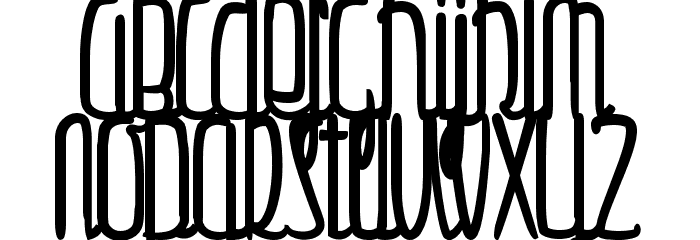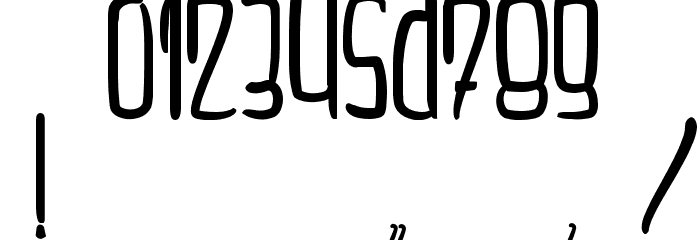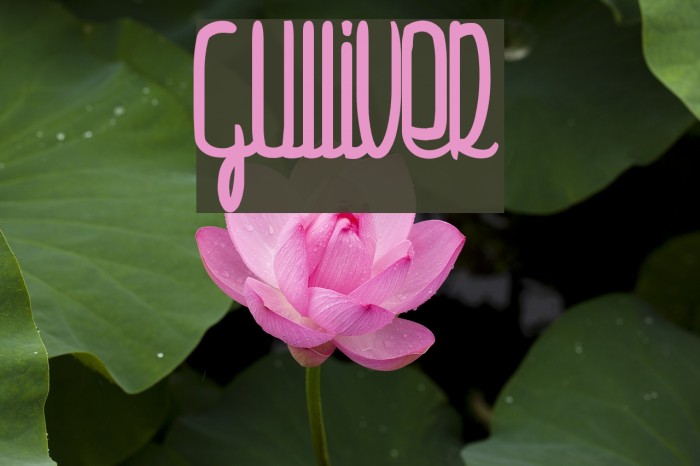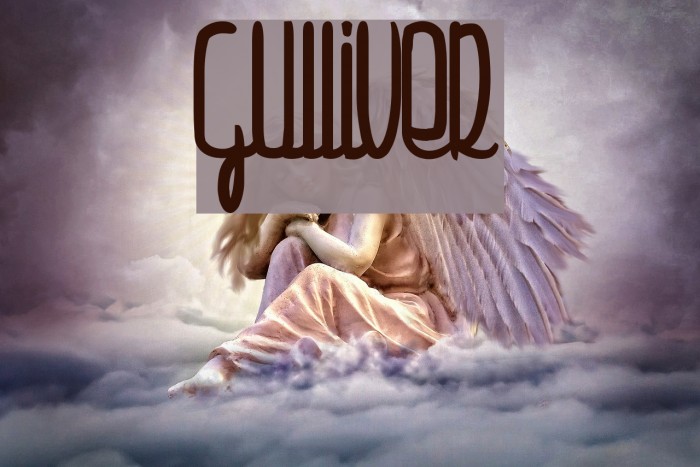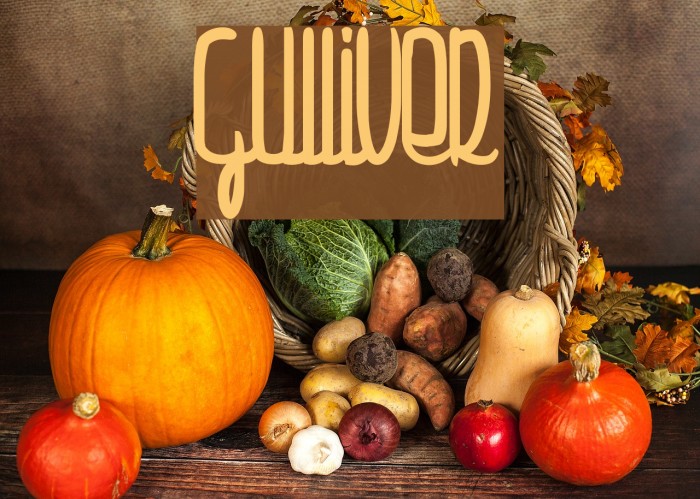
Gulliver Font
This font features a highly decorative and artistic style, characterized by its elongated and interconnected letterforms. The uppercase and lowercase letters share a consistent height, creating a uniform appearance. The characters are narrow with a condensed width, and the strokes are bold, giving a strong visual impact. The font includes a full set of uppercase and lowercase letters, numbers, and a selection of special characters. Its unique design makes it stand out, with each letter flowing into the next, creating a sense of continuity and movement.
A decorative font with elongated, interconnected letterforms and bold strokes.
- Font: Gulliver
- Proposed Projects: Ideal for artistic projects, branding, posters, and any design requiring a standout, decorative typeface.
- Character Spacing: Tight
- Use Case: Logos, Posters, Artistic projects